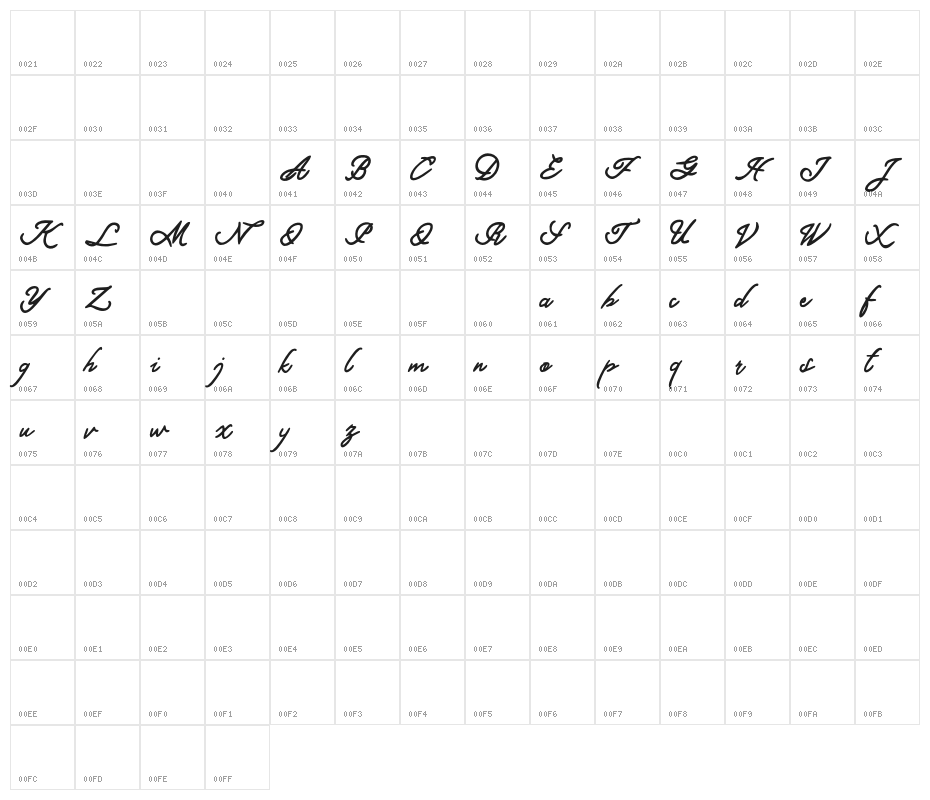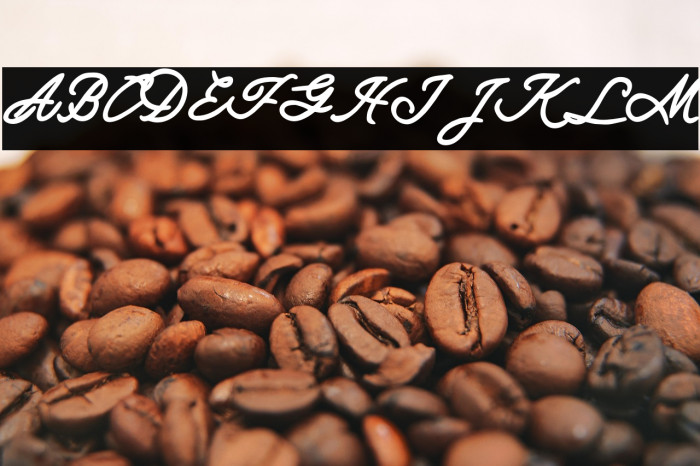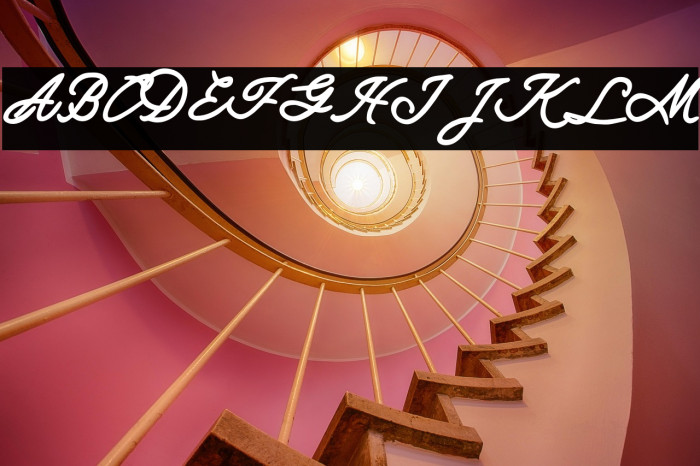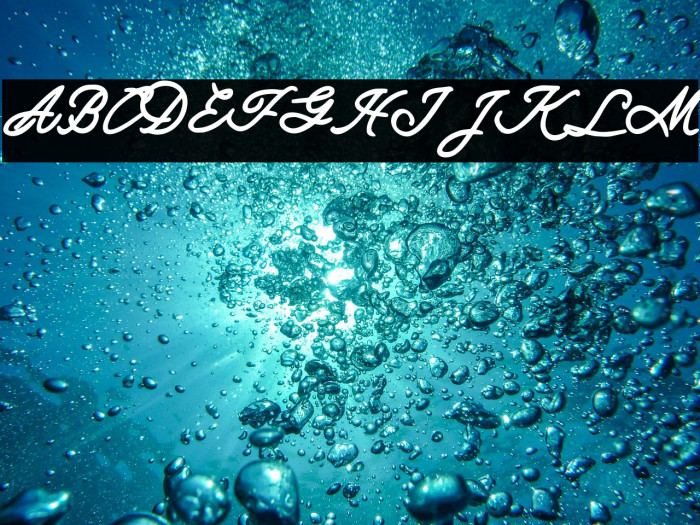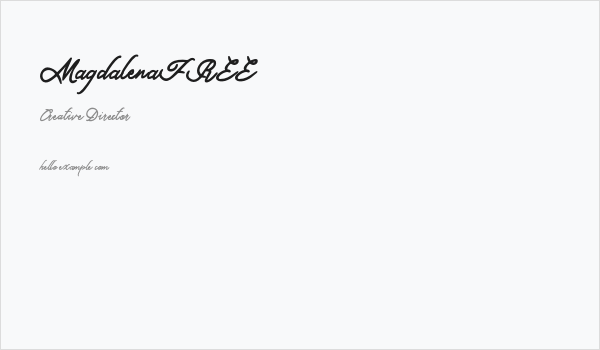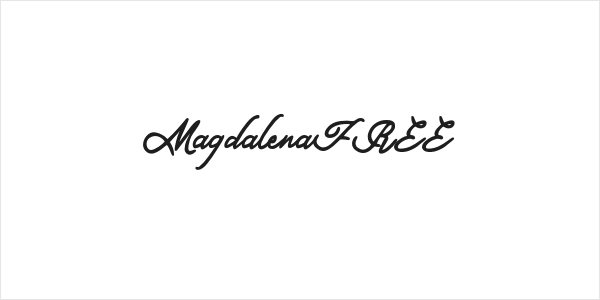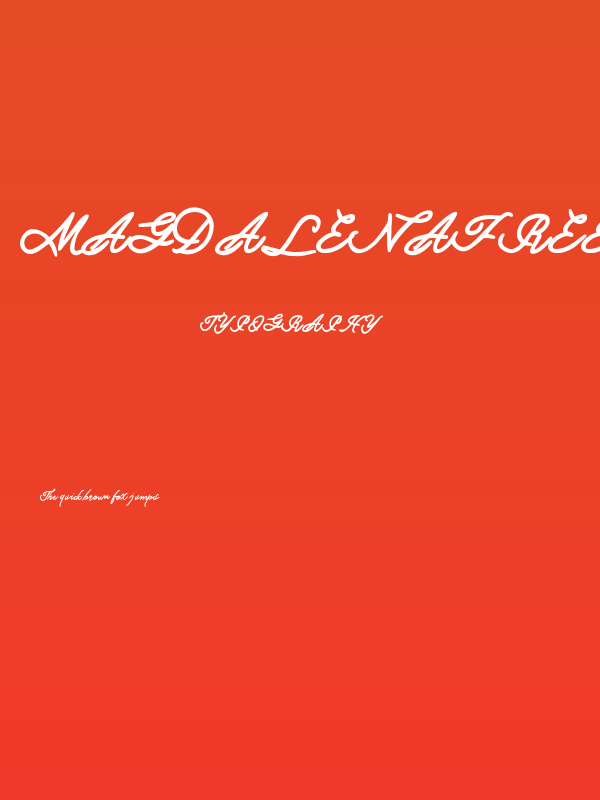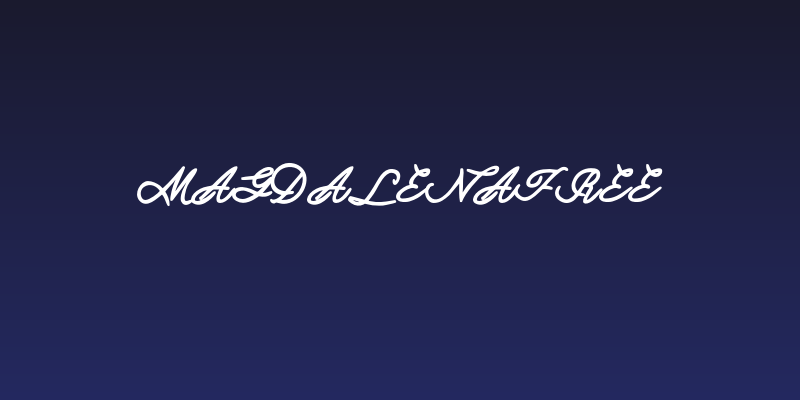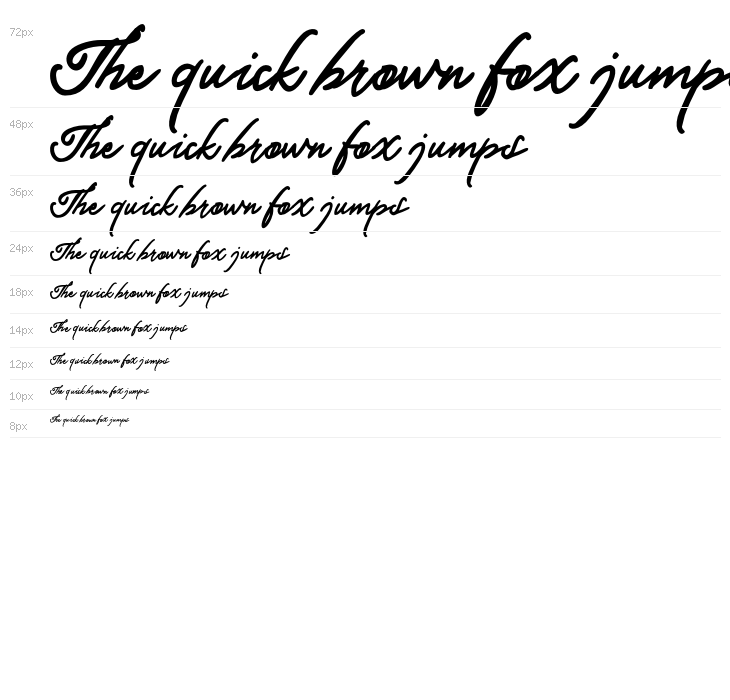
MagdalenaFREE Font
MagdalenaFREE Description
This elegant script font features flowing, cursive letters with a classic and sophisticated style. The uppercase letters are ornate, with intricate loops and flourishes, while the lowercase letters maintain a smooth, connected flow. The font exudes a sense of grace and refinement, making it ideal for formal invitations, branding, and decorative purposes. Its consistent stroke width and balanced proportions contribute to its readability, despite the decorative nature. The font's overall appearance is both timeless and versatile, suitable for a variety of design applications.
| Proposed Projects | Ideal for wedding invitations, elegant branding, greeting cards, and decorative signage. |